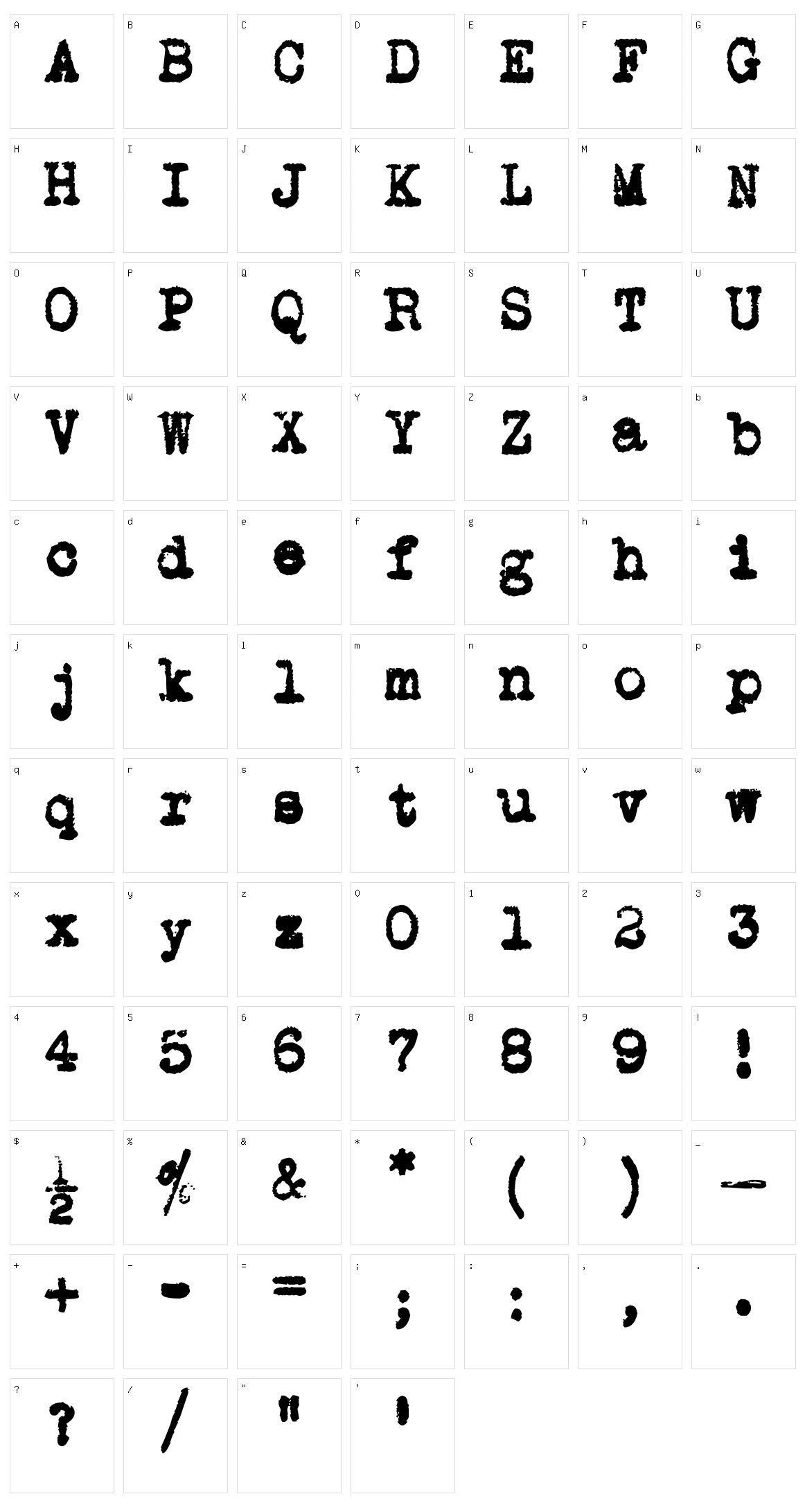
This truetype typewriter font stems from an
L.C. Smith n°5 typewriter of 1913 (serial number 197325-5)
***** BEST USE *******
To get a close result of the authentic typewriter font as it appears on paper,
set the font size on "10" and the character spacing to "+1 point".
***** BESTE EINSTELLUNG *******
Um die Schrift so hinzubringen wie sie auf Papier getippt erscheint,
stellen Sie die Schriftgröße auf "10" und den Zeichenabstand (auch Laufweite genannt)
auf "+1 Punkt".